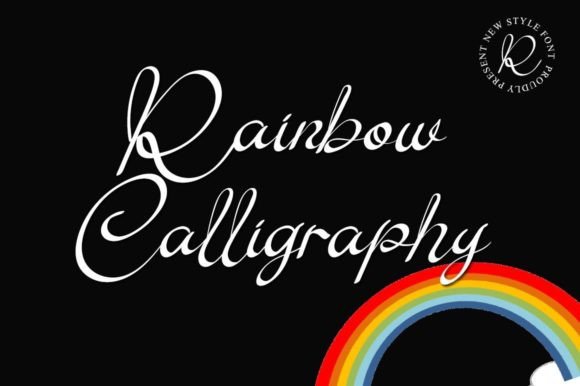
Behold, Rainbow Calligraphy Font - a visual symphony that dances across your designs, leaving a trail of elegance and joy! Dive into the world of this script font, crafted with love by Bill Kiss Studio for every design enthusiast seeking a touch of whimsical beauty.
Harnessing the power of handwritten strokes and deftly capturing their organic flow, Rainbow Calligraphy Font captivates with its harmonious curves and charming imperfections. Its essence is one of effortless grace, flowing like a river through your projects, adding a personal touch that resonates with authenticity.
Whether your canvas is a formal invitation or an informal social media post, Rainbow Calligraphy Font gracefully adapts, exuding sophistication and charm in equal measure. Its versatility knows no bounds, making it the ideal companion for logos, branding, wedding invitations, quotes, posters, and more. Unleash your creativity and watch as this font transforms your designs into enchanting masterpieces.
Rainbow Calligraphy Font is more than just a font; it's an expression of individuality, a reflection of your unique style. Let your designs bloom with its vibrant energy, capturing the attention of all who lay their eyes upon them. With Rainbow Calligraphy Font as your ally, your business will flourish, attracting clients with its undeniable allure.